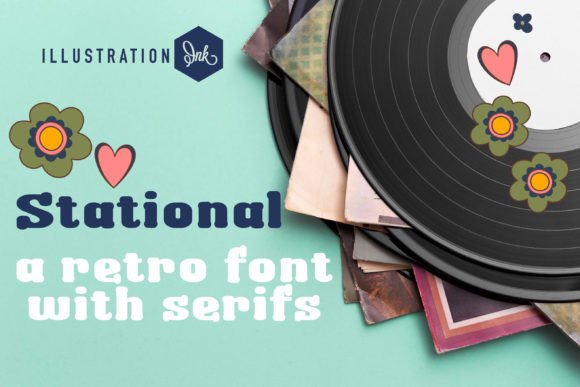
Introducing Stational Font, a captivating serif font that transports you back to the groovy era of the 1960s. With its playful curves and rounded edges, this font exudes a cheerful retro charm that's sure to turn heads.
**Stational Font: A Timeless Masterpiece for Modern Resumes**
Crafted by the talented team at Illustration Ink, Stational Font is not just another font; it's a work of art. The soft curves reminiscent of vintage posters and the rounded edges reminiscent of classic typewriters create a distinctive look that's both stylish and professional.
**Embrace Your Inner Retro Chic with Stational Font**
Whether you're a creative professional looking to leave a lasting impression or a design enthusiast seeking a unique touch, Stational Font is your perfect companion. Its versatility knows no bounds, making it an ideal choice for an array of projects:
* Unleash your creativity in crafting eye-catching social media graphics, posters, and flyers.
* Create visually stunning presentations that captivate your audience and leave them wanting more.
* Design elegant greeting cards and invitations that convey your heartfelt messages in a unique way.
* Elevate your resume and LinkedIn profile with a touch of retro flair that sets you apart from the crowd.
**Stational Font: The Perfect Complement to Your Design Arsenal**
With Stational Font at your fingertips, you'll unlock a world of design possibilities. Its retro charm adds a touch of nostalgia and elegance to any project, whether you're working on a vintage-themed poster or a modern resume.
**Experience the Timeless Charm of Stational Font Today**